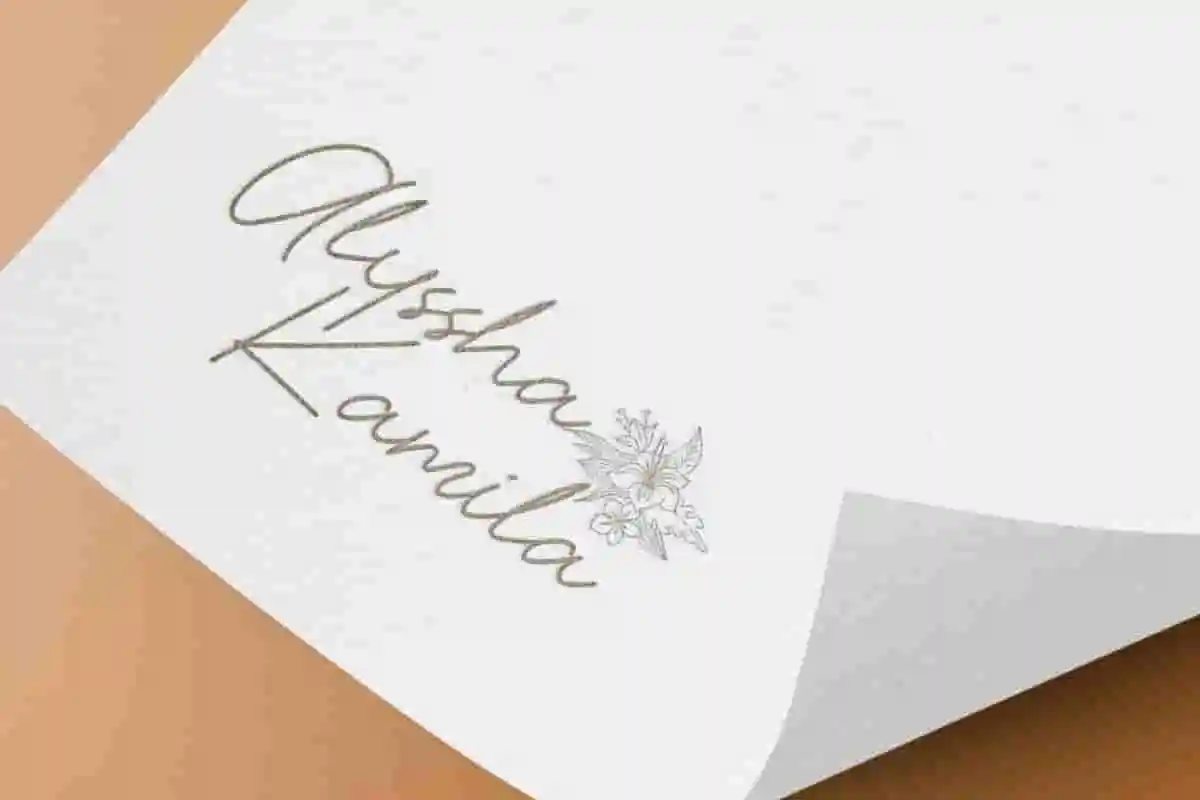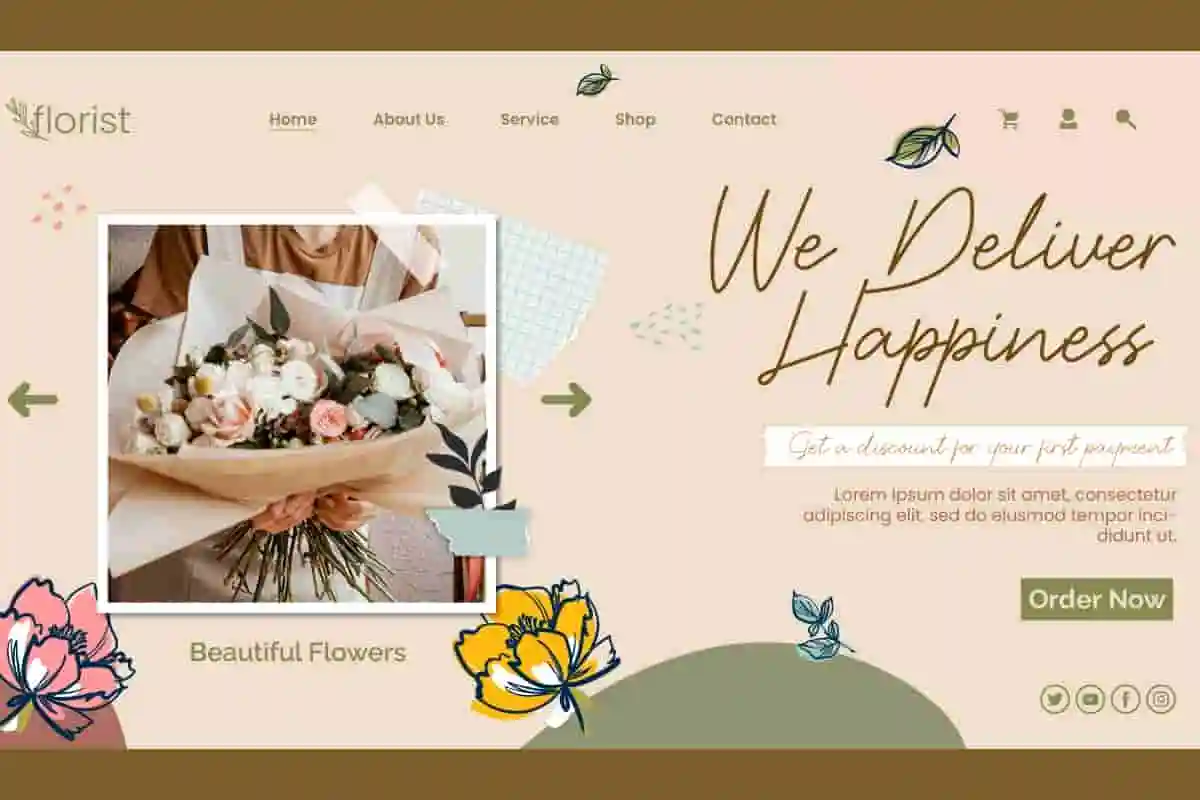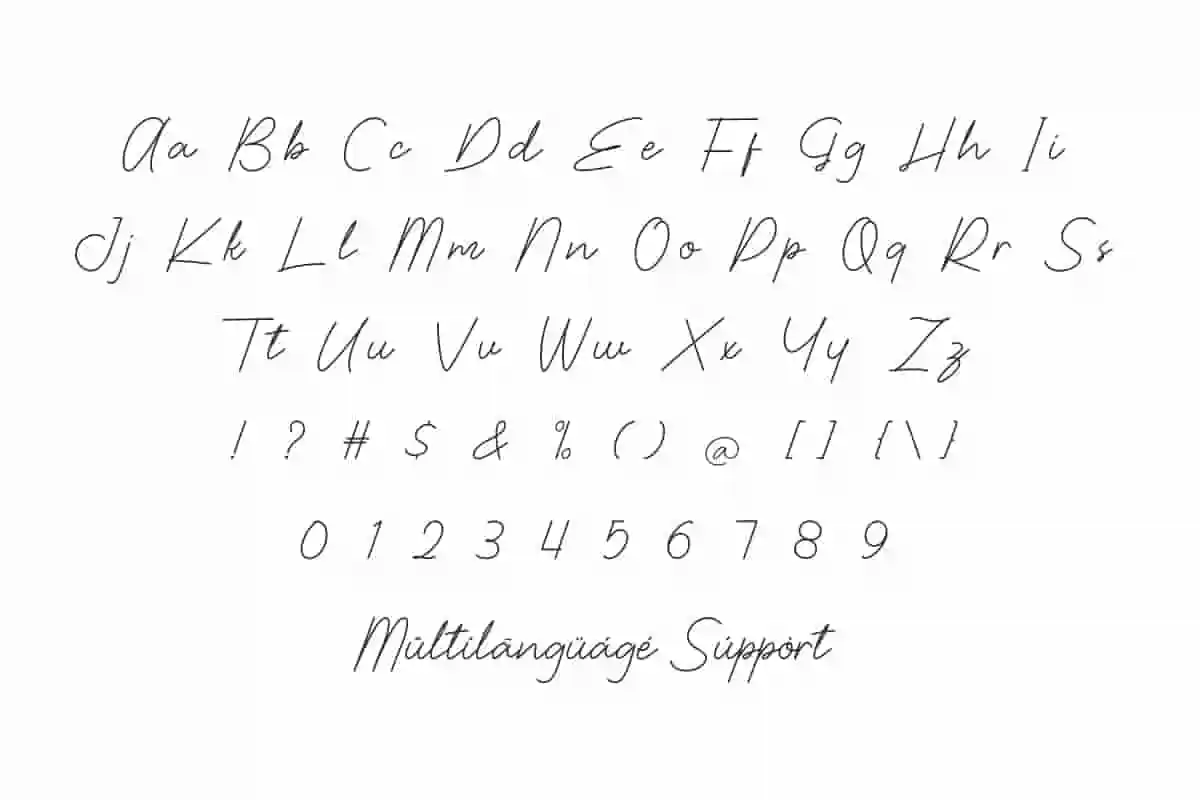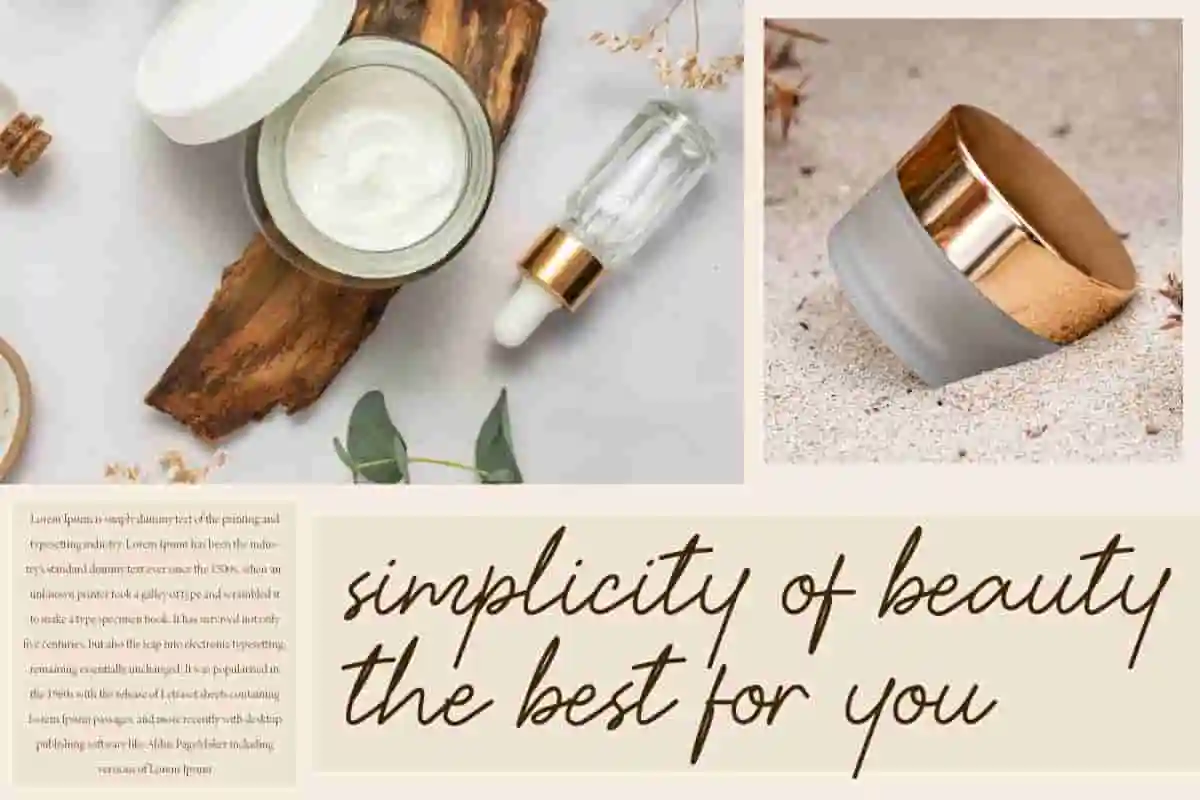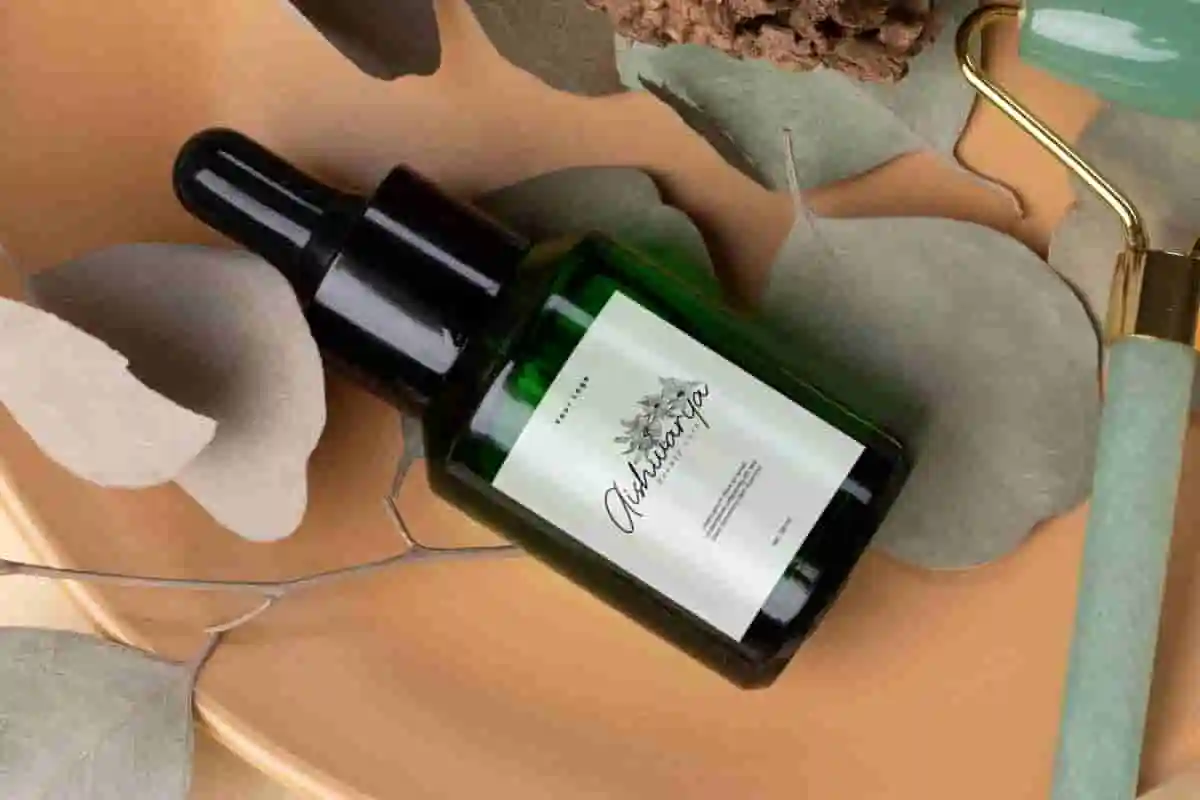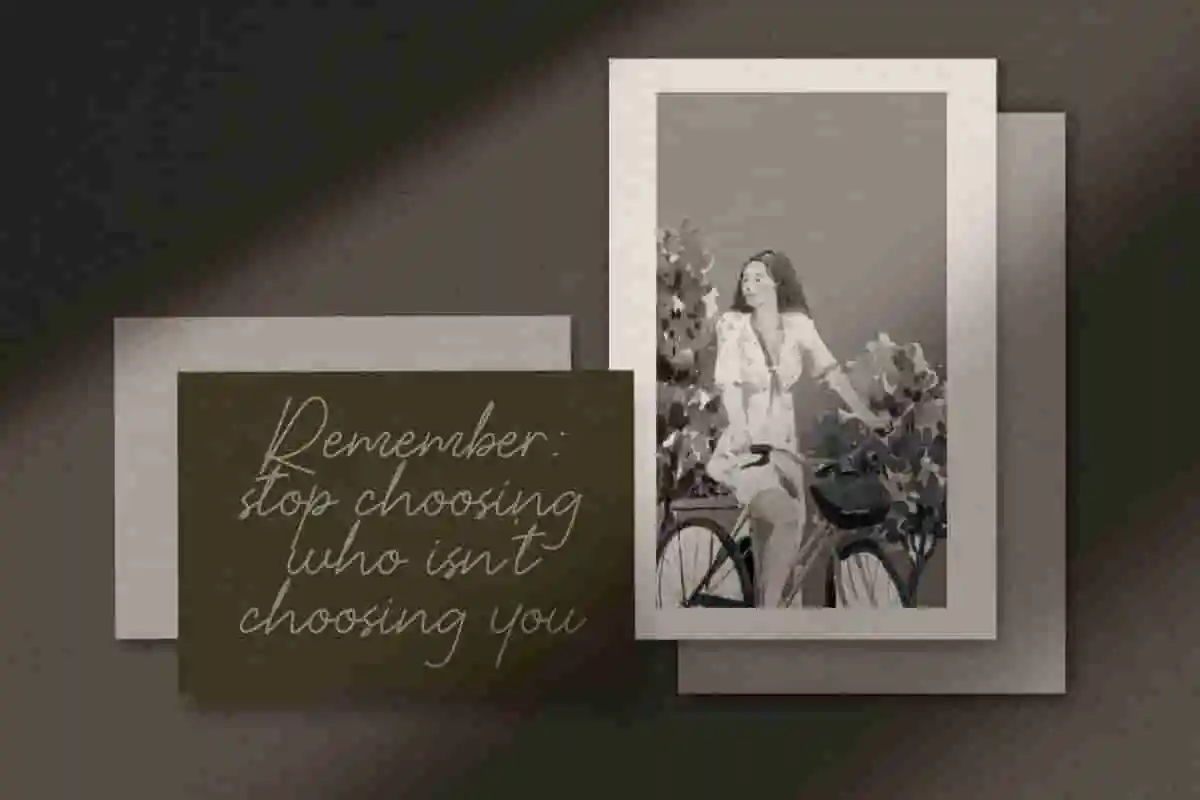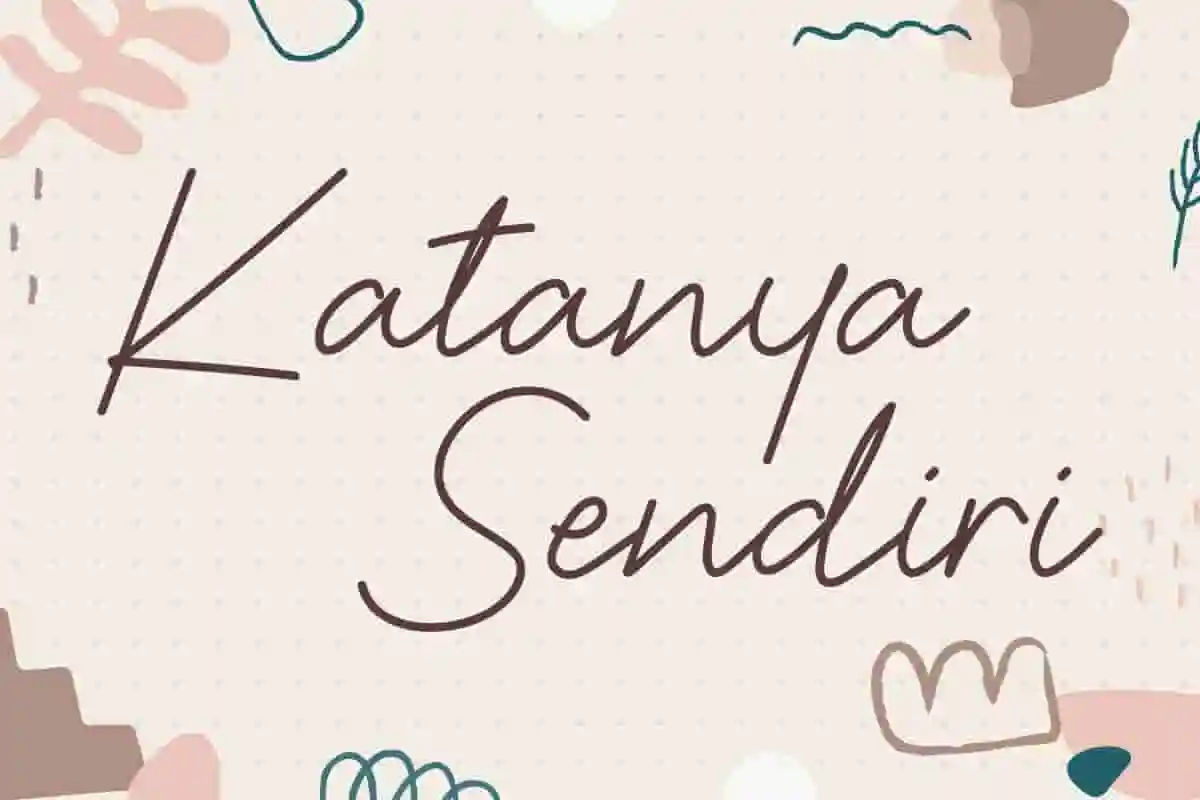
Katanya Sendiri Font is a beautiful handwritten font that is carefully crafted to embody understated elegance and refinement. Perfect for use in any design.
Katanya Sendiri Font is a simple and elegant handwritten font that adds a sweet human touch to more elevated designs. This font represents the intersection of style and functionality, with a focus on impeccable design and attention to detail. Perfect for blogs, card design, cover, flyer, label, logos, printed materials, product packaging, quotes, stickers, titles, watermarks, website, and more.
Katanya Sendiri Font includes a complete set of Basic Uppercase and Lowercase Characters, Numbers, Punctuation Marks and Symbols. It’s a font that invites the viewer to appreciate the nuances of its intricate form, while simultaneously conveying a sense of understated sophistication. Perfect for advertising, florist, graphic design, interior design, publisher, skincare, writer, etc.